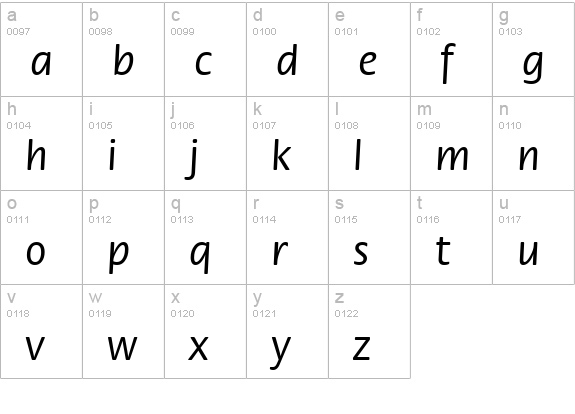
Flora ICG font is a stylish and elegant typeface that exudes sophistication and charm. With its delicate curves and graceful letterforms, Flora ICG is perfect for adding a touch of class to any design project. This versatile font is ideal for a variety of applications, from branding and packaging to invitations and signage. What's even better is that Flora ICG is available for free download at FontsMarket.com. So you can easily access this beautiful font and use it in your projects without any cost. Don't miss out on this opportunity to enhance your designs with the timeless beauty of Flora ICG font. Download it today and elevate your creations to new heights of elegance and refinement.